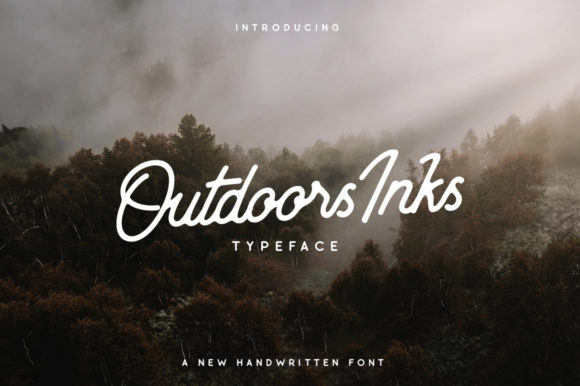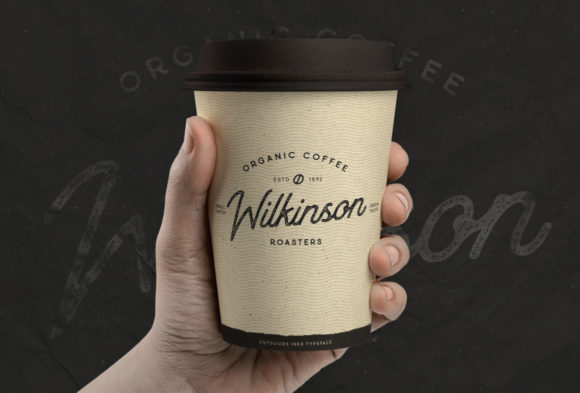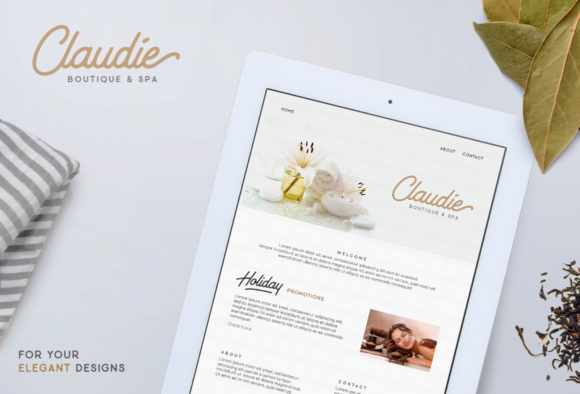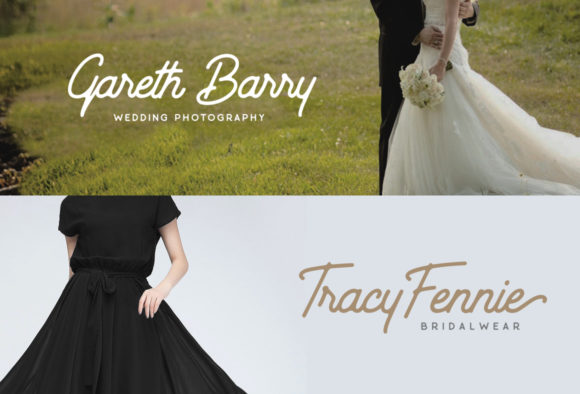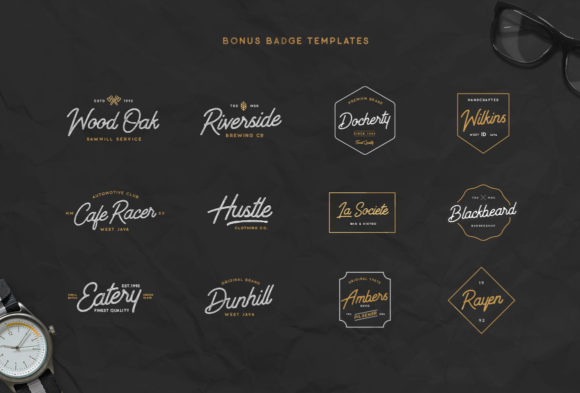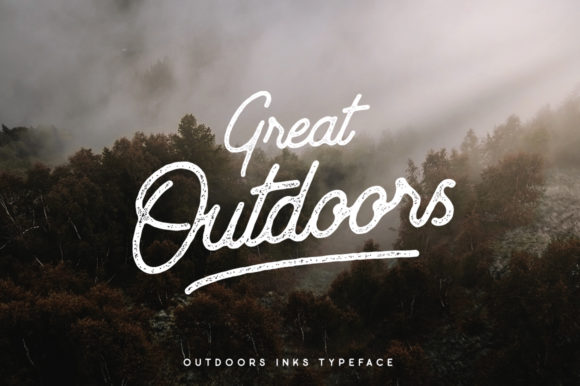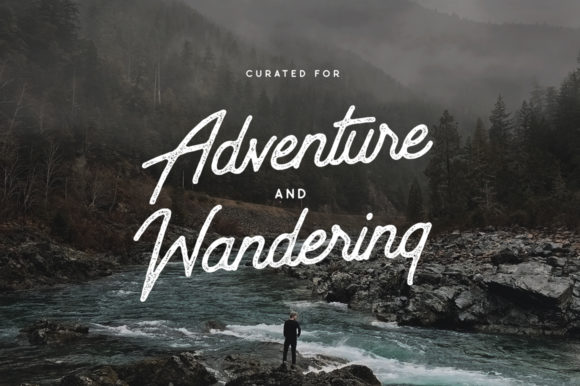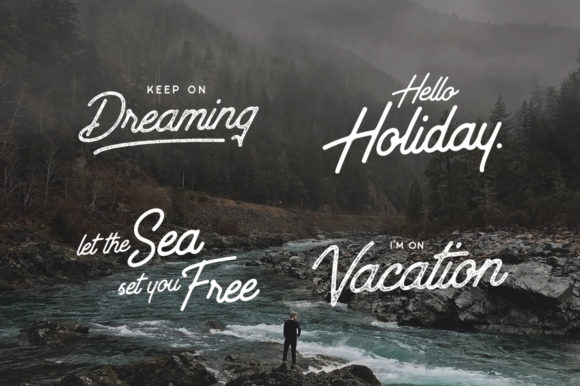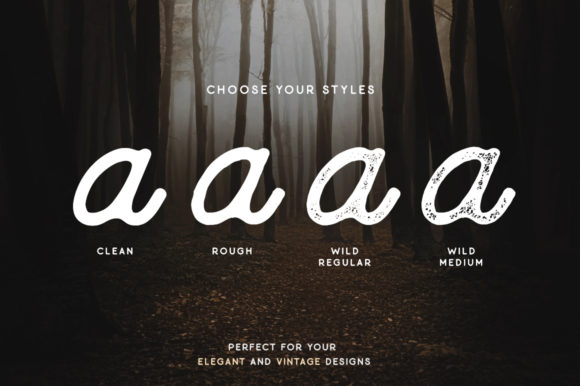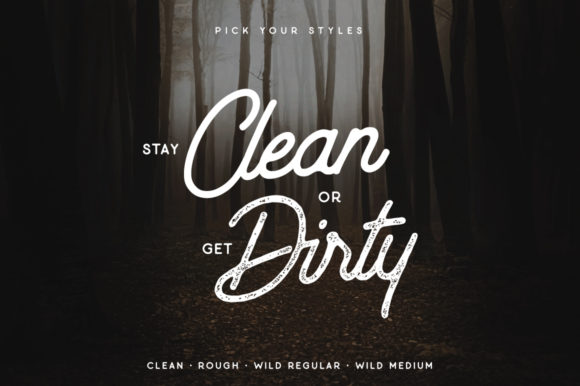
Outdoors Inks Font
About Outdoors Inks Font
Outdoors Inks feels playfully nostalgic and delivers an incredible vintage aesthetic. Use this handwritten font to add that special retro touch to any design idea you can think of!